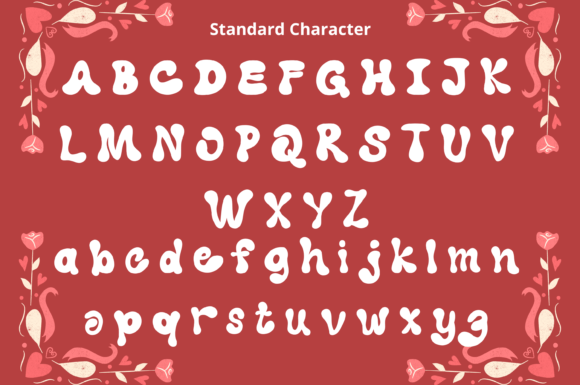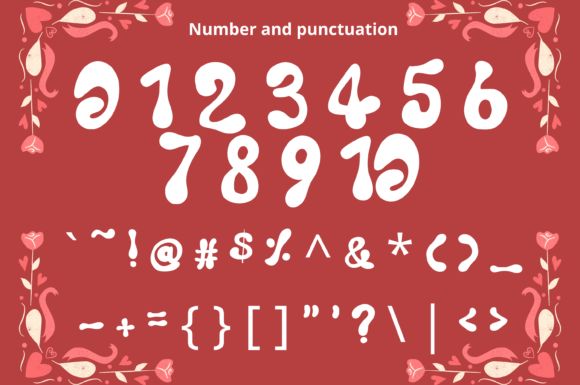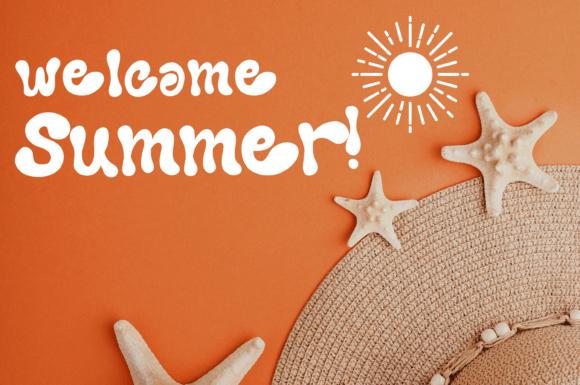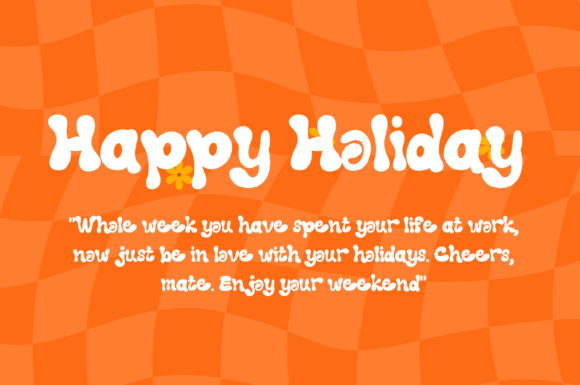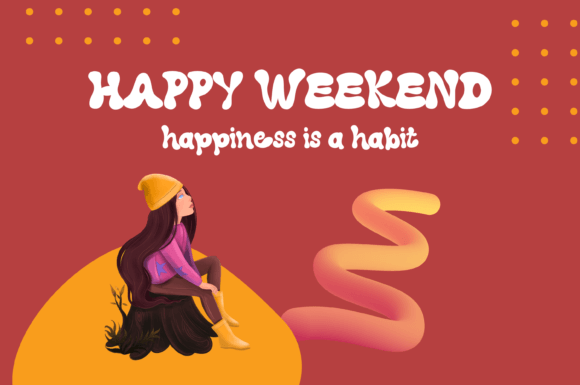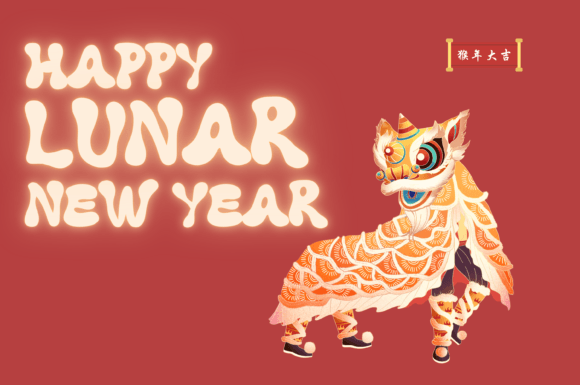
Unlock the Magic of Your Designs with the Happy Day Font
Have you ever sat staring at a blank page, struggling to bring your creative vision to life? You’ve got a brilliant idea, but it just needs that one special something to make it truly pop. That’s where the Happy Day Font comes in – a whimsical and fun display font that’s guaranteed to add a dash of excitement to your projects.
This versatile font is the perfect companion for designers looking to inject a sense of playfulness and joy into their work. Whether you’re crafting a wedding invitation, designing a children’s book, or creating a social media campaign, the Happy Day Font is the perfect addition to your toolkit. Its unique charm and character make it a valuable asset for any designer looking to add a little extra magic to their creations.
Key Features of Happy Day Font
- Font Family: Happy Day Font is a sans-serif typeface designed to evoke a sense of happiness and playfulness.
- Unique Characteristics: Features a distinctive rounded design with a friendly and approachable feel, making it ideal for use in branding, advertising, and editorial content.
Designer Review: Happy Day Font
Happy Day Font is a charming and cheerful font that’s perfect for projects that need a pop of fun and optimism. ✨ The rounded edges and soft curves give it a friendly and approachable feel, making it ideal for children’s books, party invitations, or any design that requires a carefree vibe. ✨ The font is also highly legible, even at smaller font sizes, which is a must for any successful design.
However, there are some limitations to consider. ⚠️ The font may not be the best choice for formal or professional designs, as it can come across as too playful or immature. ⚠️ Additionally, the font’s rounded edges can sometimes make it difficult to read for those with visual impairments. ⚠️
Overall, I think Happy Day Font is a great addition to any designer’s toolkit, but it’s essential to use it thoughtfully and in the right context. With its unique personality and versatility, it’s sure to bring a smile to your design projects.
Here are some pros and cons to keep in mind:
- ✨ Friendly and approachable feel
- ✨ Highly legible, even at smaller font sizes
- ✨ Perfect for children’s books, party invitations, or other fun designs
- ⚠️ May not be suitable for formal or professional designs
- ⚠️ Can be difficult to read for those with visual impairments
Tips for Getting the Most Out of Happy Day Font
Here are some tips for getting the most out of Happy Day Font:
- Use Happy Day Font for titles and headings to add a touch of whimsy and playfulness.
- Pair Happy Day Font with other playful fonts to create a fun and lively design.
- Experiment with different font sizes and colors to create a visually appealing design.
Happy Day Font is perfect for:
- Birthday invitations and party decorations.
- Wedding invitations and wedding
Alternatives to Happy Day Font
Great Vibes is a playful, handwritten font perfect for creating a carefree and fun atmosphere. It’s ideal for use in advertisements, social media graphics, and packaging designs. Great Vibes has a similar energetic feel to Happy Day Font, but with a more casual and relaxed tone.
Ostrich Sans is a modern, sans-serif font with a touch of playfulness. It’s suitable for use in digital products, websites, and apps where a clean and friendly look is desired. Ostrich Sans is more versatile than Happy Day Font and can be used in a wider range of design projects.